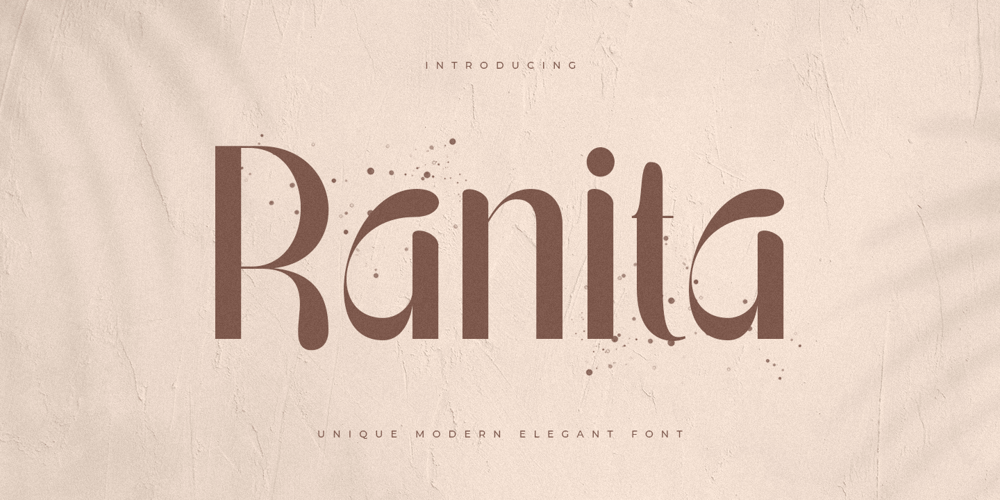
Ranita
Ranita font
Ranita Font Family was designed by Zamroni Hamzah and published by Sensatype Studio. Ranita contains 2 styles and family package options. Ranita is a Unique Modern Elegant Font with Sharp shape make your design look classy and elegantA new San Serif Font that we created special for Headline, Title and more stand out typography needs, with extra ligature that will add your variations. Ranita Modern Luxury Elegant Sans Serif Font ready with: Any options to get creative variations Preview as a inspirations that you can do with Ranita font Ready Unique with All characters Wish you enjoy our font. 🙂